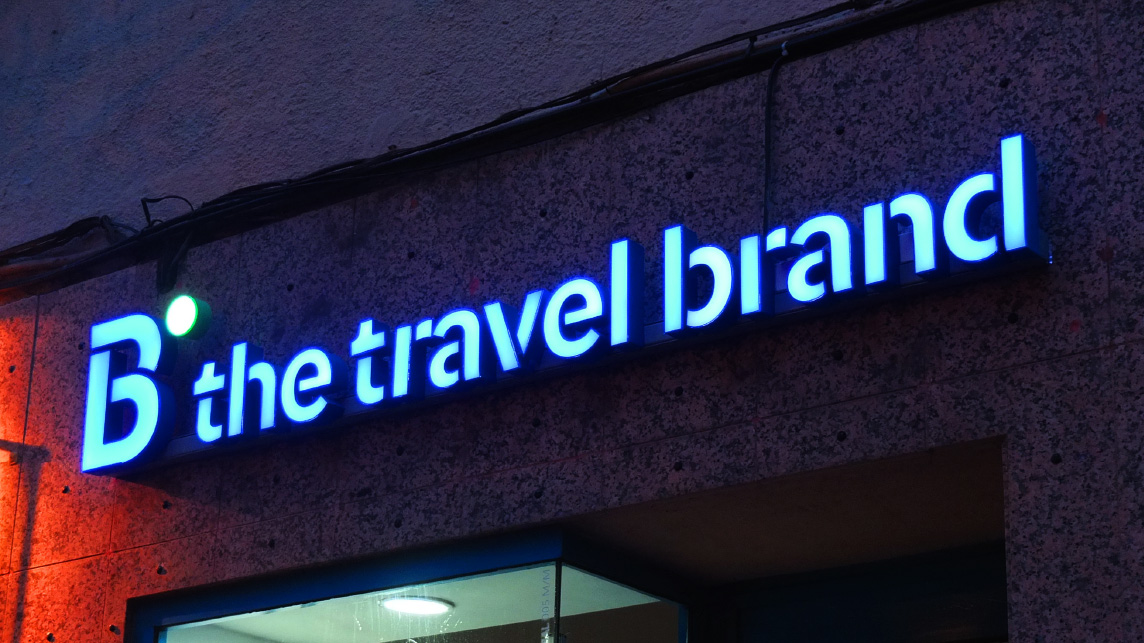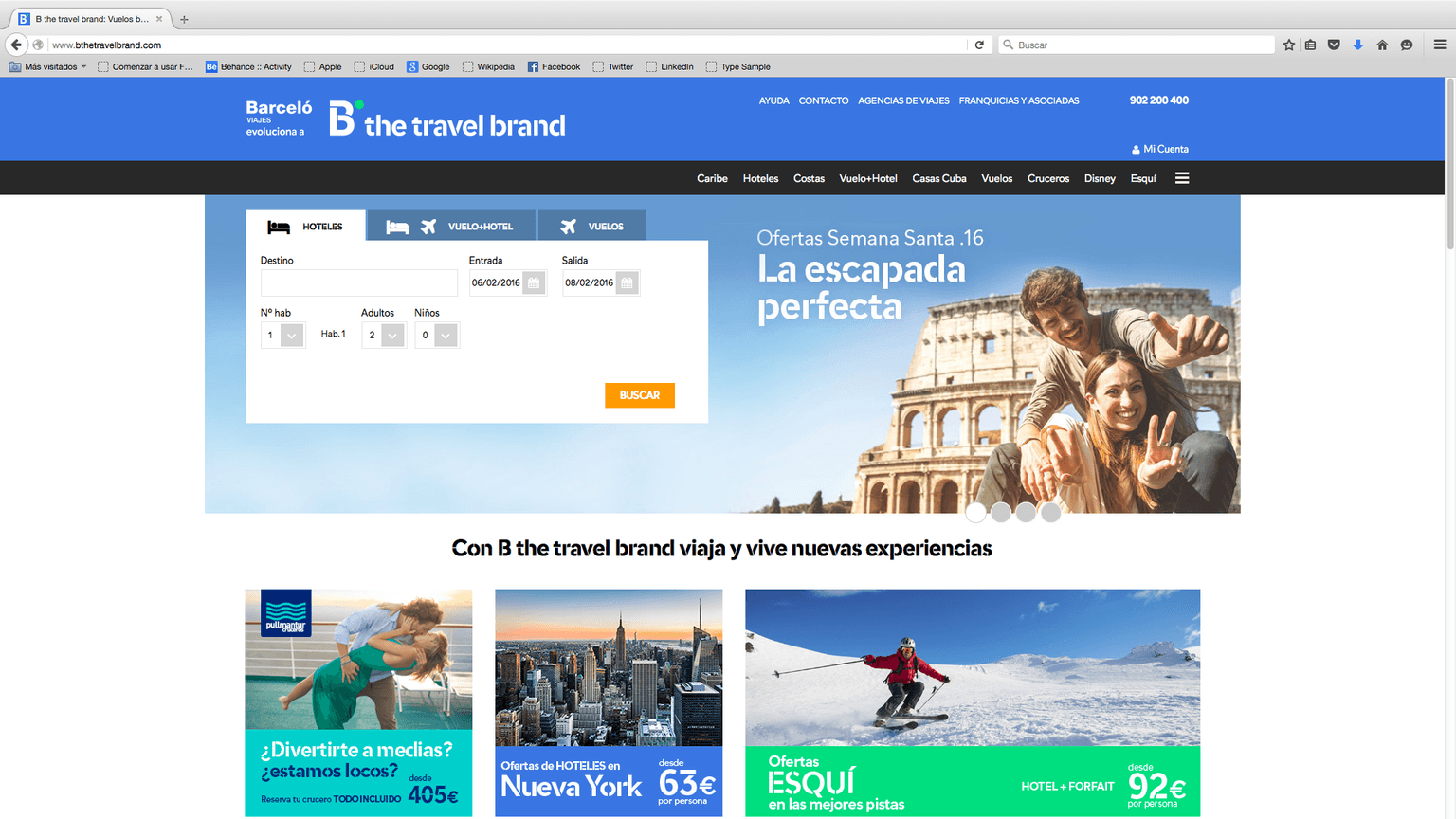
B the travel brand
Barceló Viajes is . In the spring of 2015 it became B the travel brand.
Hey Studio contacted us to develop a sans serif typeface family based on a graphic proposal for Viatges Barceló, the leading and most established travel agency in Spain, which was renamed to B the travel brand. This brand had a stencil style as its backbone, which when converted to a solid style became the Bold of the new typeface.